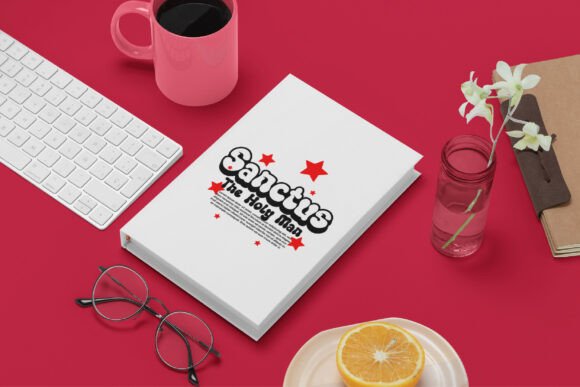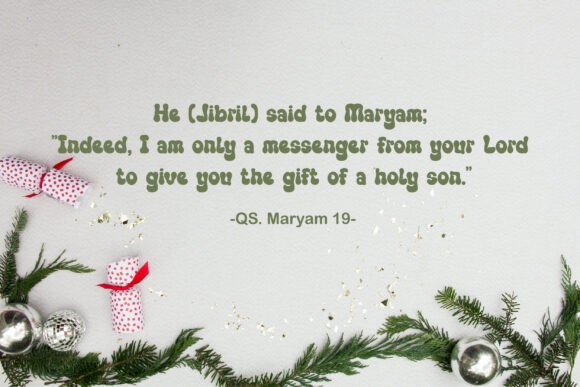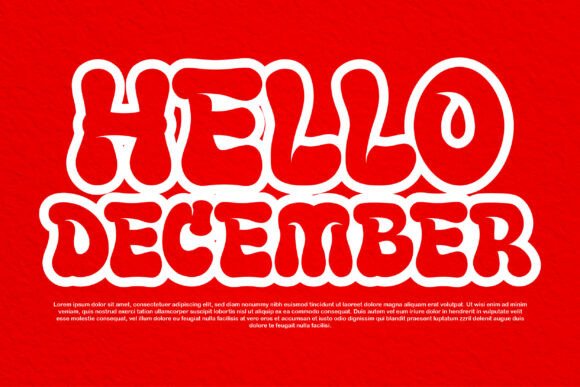
Introduction to Christ Groovy Font
Have you ever stumbled upon a design that instantly sparks your creativity and makes you feel like you’re in the holiday spirit? For many designers, the thrill of discovering a new font that perfectly captures the essence of a creative project is unmatched. It’s that moment of excitement when you know you’ve found the perfect design resource to elevate your work. One such font that embodies the magic of the holiday season is the Christ Groovy Font.
With its unique blend of groovy style and Christmas spirit, Christ Groovy Font is the perfect addition to any design project. Whether you’re creating invitations, thank you cards, or sweet quotes, this font brings a playful charm that’s hard to resist. Its versatility makes it an invaluable resource for designers, allowing them to add a touch of the golden era to their high-quality designs. And the best part? Christ Groovy Font is available for free download, making it an accessible and transparent background for your creative projects.
Key Features of Christ Groovy Font
- Unique and playful design style, perfect for creative projects and branding
- Comes with a transparent background, allowing for seamless integration into various design elements
- High-quality font with crisp details, suitable for use in digital and print materials
- Includes a wide range of characters, including uppercase and lowercase letters, numbers, and punctuation marks
Honest Review: Christ Groovy Font
I recently stumbled upon the Christ Groovy Font, and I must say, it’s been a game-changer for my creative projects. This free download has become an essential design resource in my toolkit.
- ✨ Unique and eye-catching style that’s perfect for adding a touch of personality to my designs
- ✨ High quality font files that are crisp and clear, even when used on a transparent background
- ✨ Extremely versatile, suitable for a wide range of creative projects, from posters to social media graphics
However, I do have a few reservations:
- ⚠️ Limited font sizes and styles, which can make it difficult to customize for more complex designs
- ⚠️ Not ideal for professional or formal projects, as it may come across as too playful or casual
Overall, I’m impressed with the Christ Groovy Font. It’s a great addition to any designer’s arsenal, and I’ve already used it in several successful projects. While it may have some limitations, I think its unique style and high quality make it well worth the download.
Tips for Getting the Most Out of Christ Groovy Font
When working with Christ Groovy Font, consider the following tips:
1. Use a transparent background to create a more modern look.
2. Experiment with different font sizes and colors to achieve the desired effect.
Common Use Cases for Christ Groovy Font
Christ Groovy Font is ideal for:
1. Social media graphics and posts.
2. Branding and logo design.
3. Infographics and data visualizations.